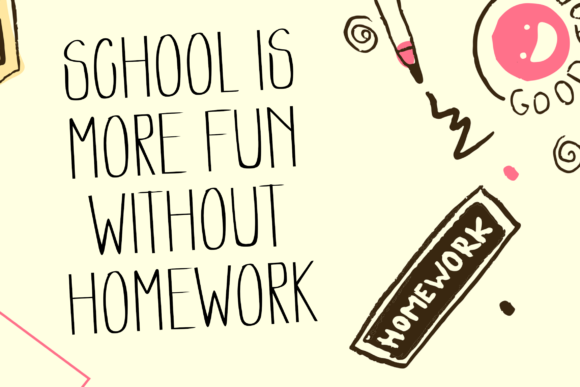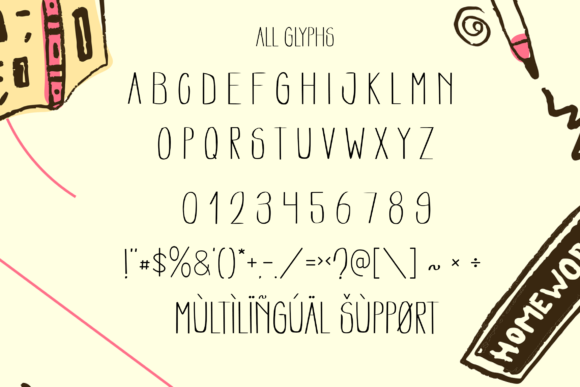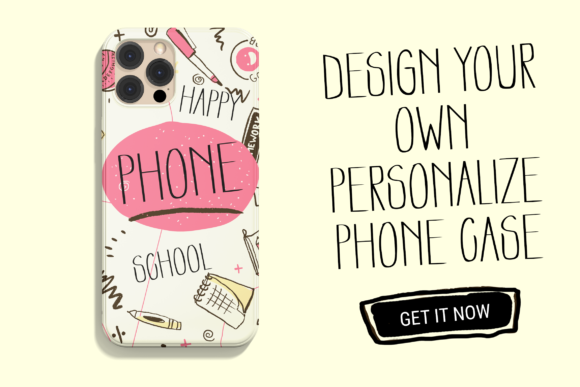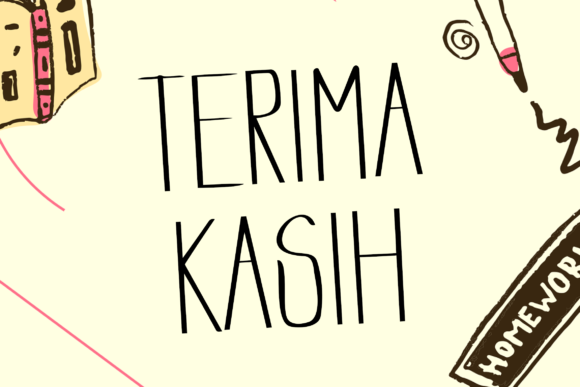
Kotak Pensil Font
**Kotak Pensil Font: Simple Handwriting with a Touch of Cuteness**
Introducing *Kotak Pensil Font*, a simple handwriting typeface created from a kid’s writing style, infusing a delightful sense of cuteness. This font is not only suitable for crafting but also for a wide array of creative ideas. Add this beautiful display font to your projects and experience how it makes them stand out with a unique charm. Whether it’s for web, print, moving images, or any other creative medium, *Kotak Pensil* promises to give a spectacular look to your design.
The charm of *Kotak Pensil* lies in its simplicity and the inherent cuteness derived from a child’s handwriting. Each stroke reflects a playful and innocent quality, making it an ideal choice for projects that seek to evoke a light-hearted and adorable atmosphere.
This font is more than just letters on a page; it’s about infusing your designs with a touch of childlike wonder. *Kotak Pensil* brings a sense of creativity and imagination, making it suitable for a variety of applications where a playful and cute aesthetic is desired.
Whether you’re working on crafting projects, designing for children, or adding a whimsical element to your creative ideas, *Kotak Pensil* adapts seamlessly. Its versatility ensures that it stands out in various design contexts, giving your projects a distinctive and charming look.
Incorporate *Kotak Pensil Font* into your creative endeavors, and watch as it adds a delightful touch of cuteness and creativity. Let it be the font that brings a spectacular look to your designs, making them memorable and captivating across different mediums.